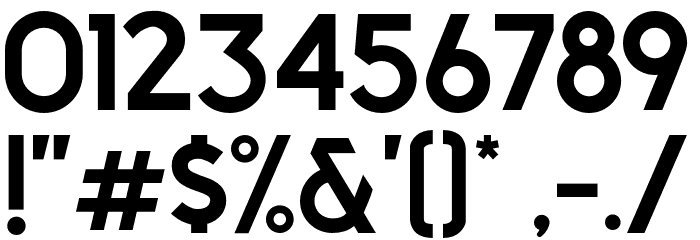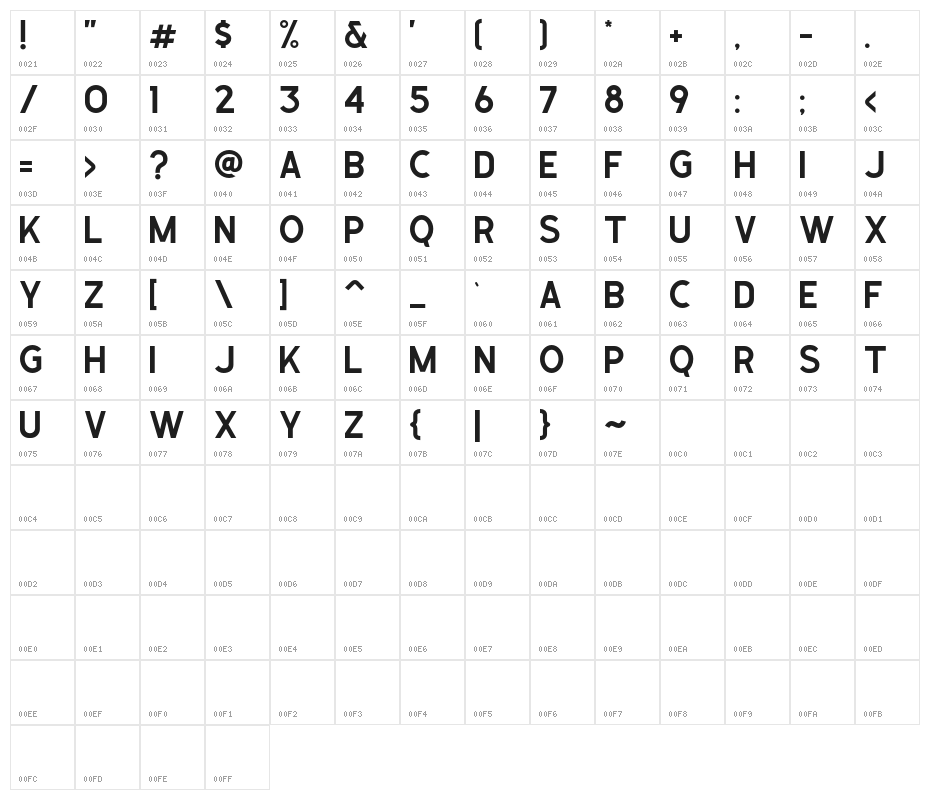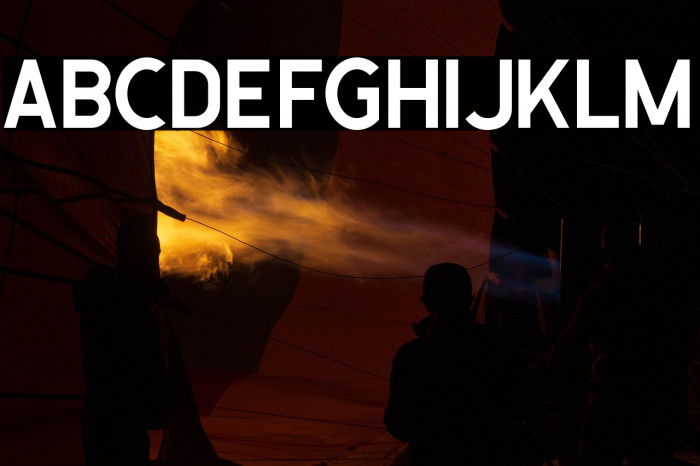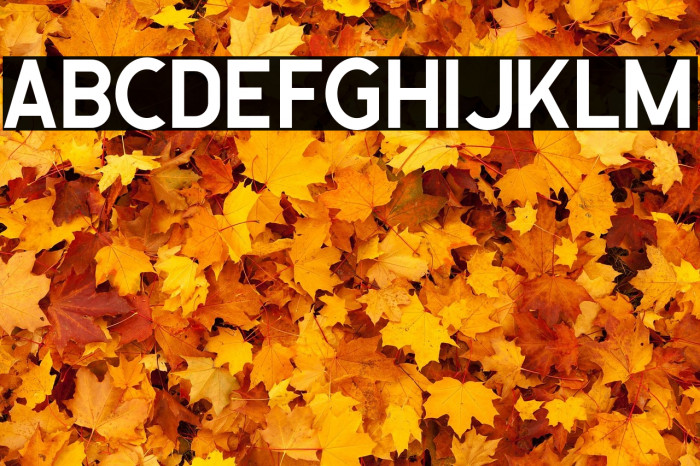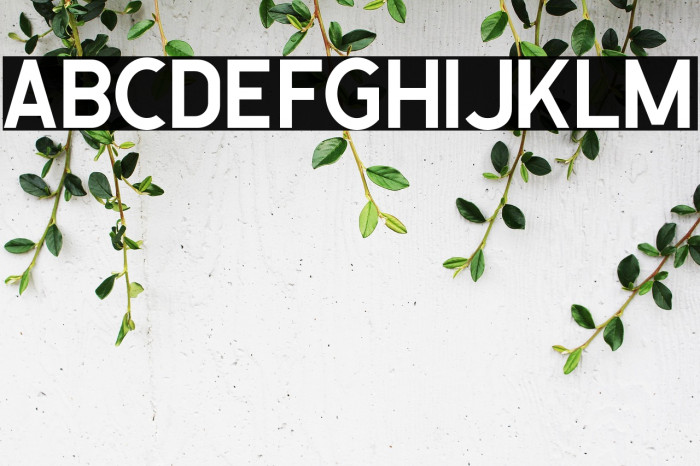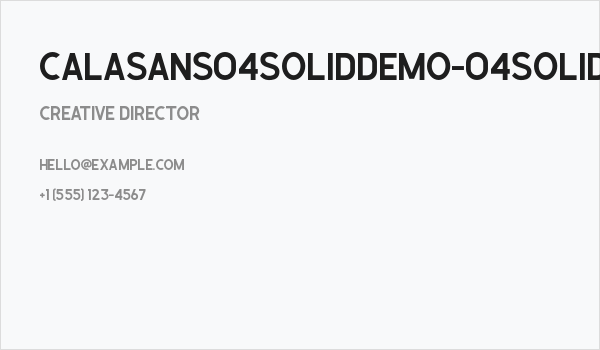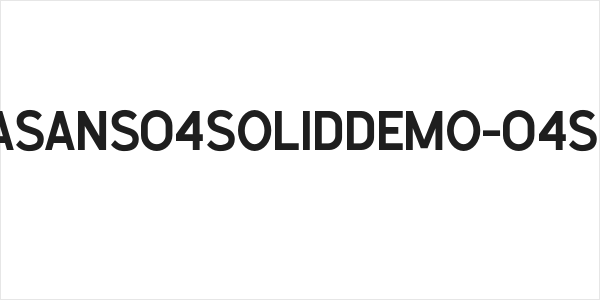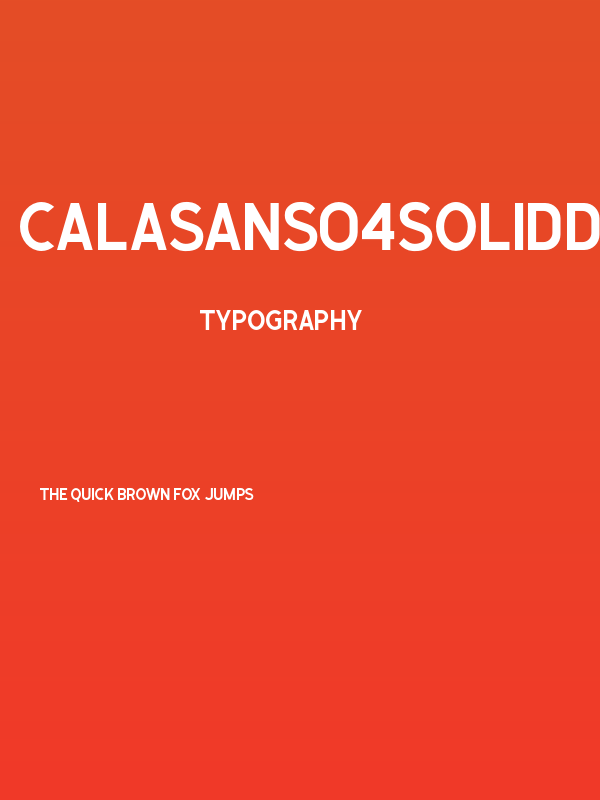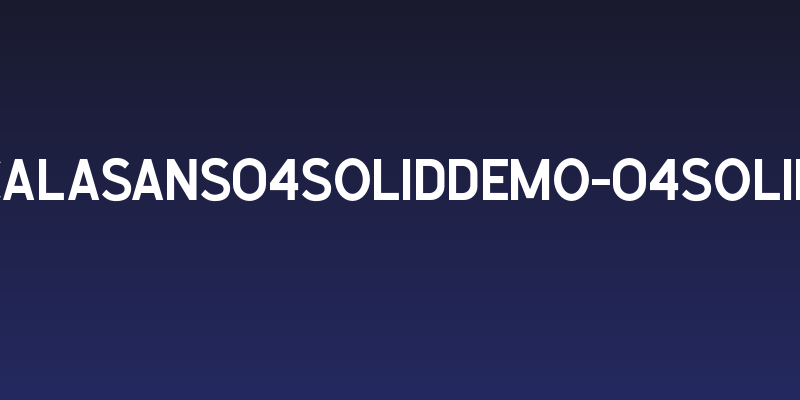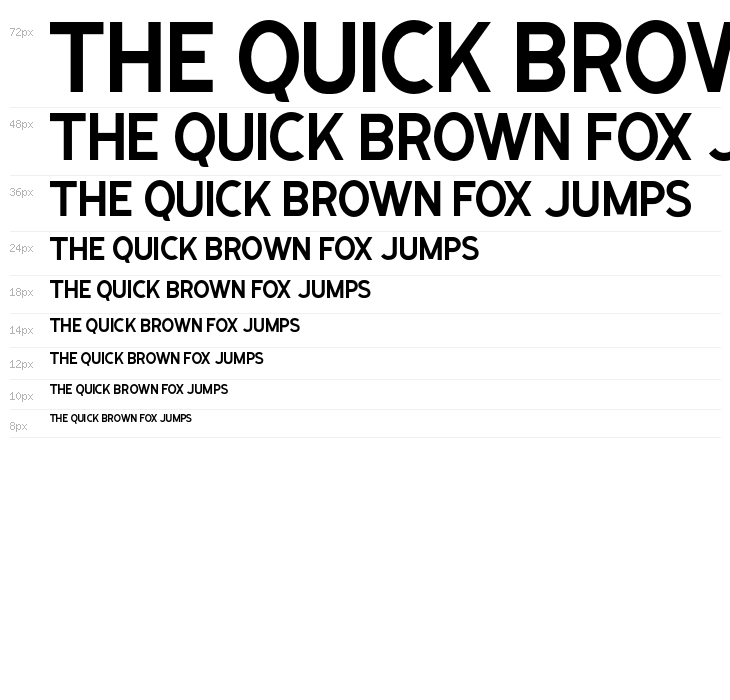
Calasans04SolidDemo-04Solid Font
This font exhibits a bold and modern design with clean, geometric lines and a strong presence. The uppercase letters are uniform in height, creating a cohesive and balanced look. The lowercase letters maintain a similar width, contributing to the font's overall consistency. Numbers are clear and legible, matching the boldness of the alphabet characters. Special characters are well-defined, enhancing the font's versatility. The style is suitable for a variety of applications, from digital interfaces to print media, where clarity and impact are essential.
| Use Case | Headlines, Logos, Digital Interfaces |
| Proposed Projects | Ideal for branding, advertising, headlines, and digital interfaces. |